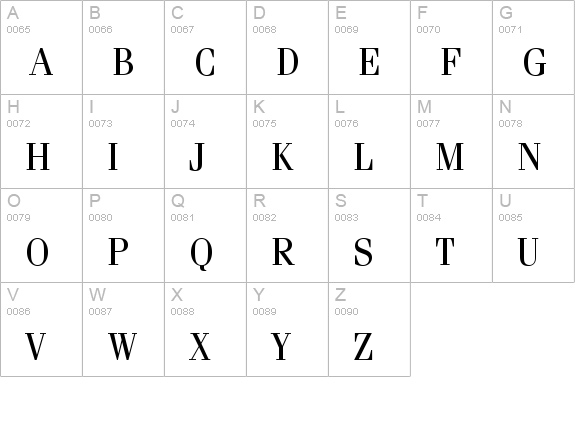
FeniceEF-Regular is the standard, neutral variant in the FeniceEF typeface family \xE2\x80\x94 well suited to general body text, paragraphs, and standard typographic work.
FeniceEF-Regular is a sleek and modern font that exudes elegance and sophistication. With its clean lines and balanced proportions, this typeface is perfect for adding a touch of refinement to any design project. The versatility of FeniceEF-Regular makes it suitable for a wide range of applications, from branding to editorial design. One of the best things about FeniceEF-Regular is that it is completely free to download at FontsMarket.com. This means that you can access this beautiful font without any cost, making it a valuable asset for designers and creatives looking to elevate their work without breaking the bank. Whether you're working on a professional project or a personal creative endeavor, FeniceEF-Regular is sure to impress with its timeless appeal and effortless charm.